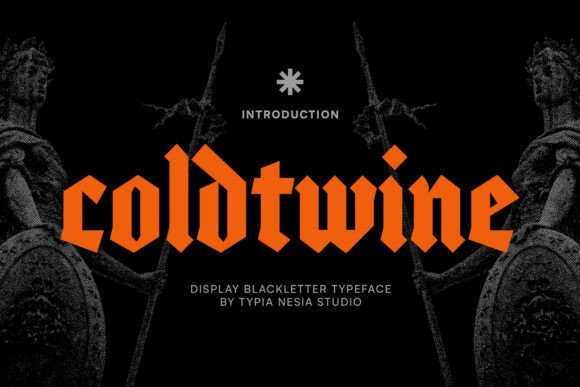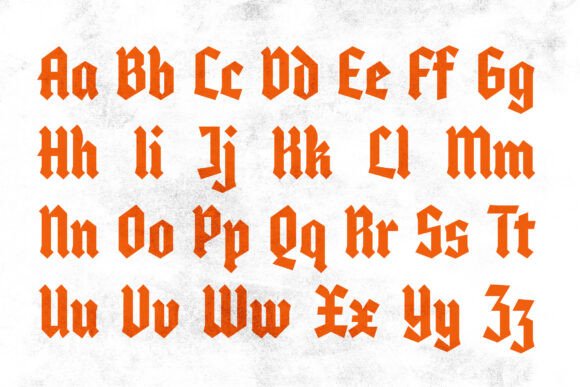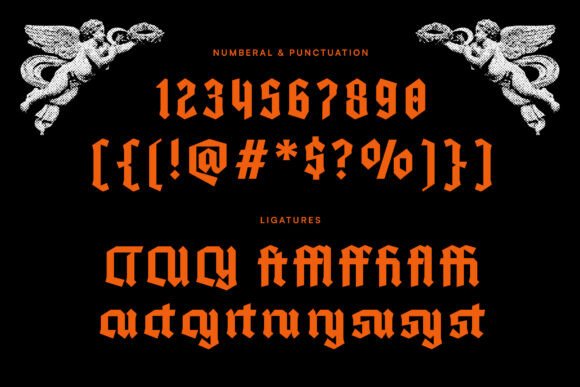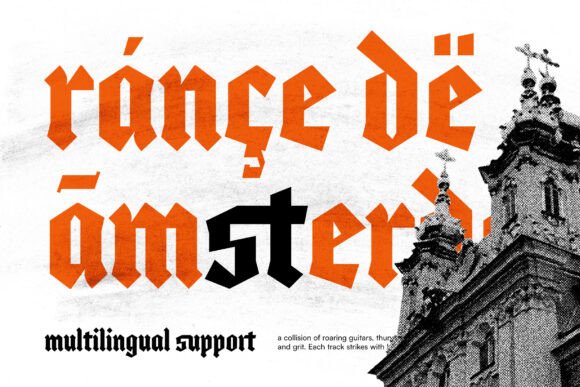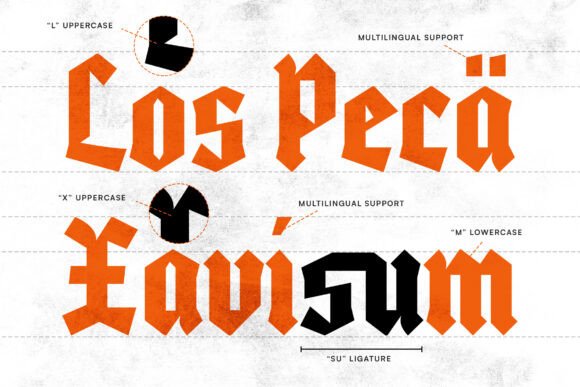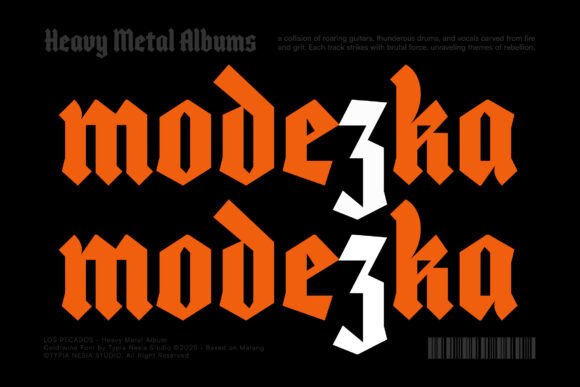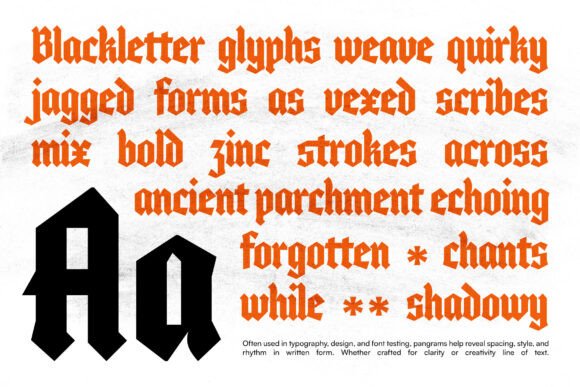
Unleash the Dark Aesthetic with Coldtwine Font
Have you ever stumbled upon an old, mysterious tome hidden away in a dusty library, its worn leather binding beckoning you to open its secrets? That’s the kind of atmosphere Coldtwine Font can evoke in your designs. This bold, gothic blackletter font is a powerful tool for creatives who crave a dark, intense, and authoritative visual impact.
Coldtwine Font is designed to capture the essence of medieval, old English, and classic blackletter traditions, making it perfect for music artwork, game titles, dramatic logos, and striking poster designs. Its bold structure and classic blackletter details are ideal for horror, dark, fantasy themes, and any projects that demand power, mystery, and depth.
Coldtwine Font Key Features
- Unique Characteristics: Coldtwine Font features a unique blend of modern and vintage elements, with a strong emphasis on readability and legibility.
- Character Set: The font includes a wide range of characters, including Latin, Cyrillic, and Greek alphabets, as well as punctuation and special characters.
Coldtwine Font Review
I recently had the chance to work with the Coldtwine font, and I must say, it’s a fascinating typeface. Here’s my honest review.
- The Coldtwine font is incredibly elegant and refined, making it perfect for high-end branding and luxury packaging.
- It features a unique blend of modern and vintage elements, giving it a timeless appeal that’s sure to stand out.
- The font’s versatility allows it to work well in a variety of contexts, from headlines to body text.
- The Coldtwine font may be a bit too ornate for some projects, which can make it difficult to read at smaller font sizes.
- The font’s unique characteristics can make it challenging to pair with other typefaces, requiring careful consideration when combining it with other fonts.
Overall, the Coldtwine font is a stunning typeface that’s sure to impress. While it may have some limitations, its unique charm and versatility make it a great addition to any designer’s toolkit.
Coldtwine Font is ideal for:
- Brand identities and logos